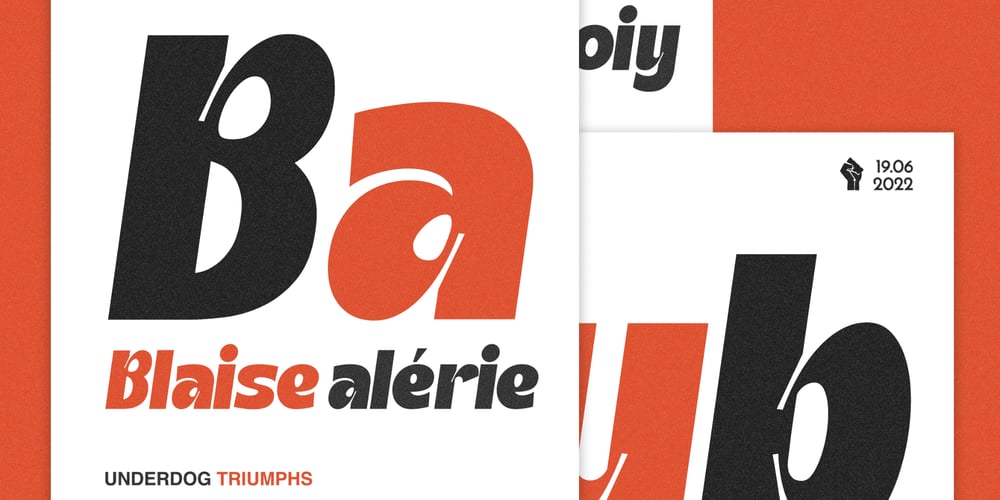
Kanisa Lucky
Kanisa Lucky font
Kanisa Lucky Font Family was designed by Aswangga Sadike and published by Salamahtype. Kanisa Lucky contains 2 styles and family package options. Introducing “Kanisa Lucky” font is a bold typeface featuring an ink trap style, making it an excellent choice for logos, headlines, sport flyers, magazines, books, and other print media. It comes in two styles: regular and oblique.